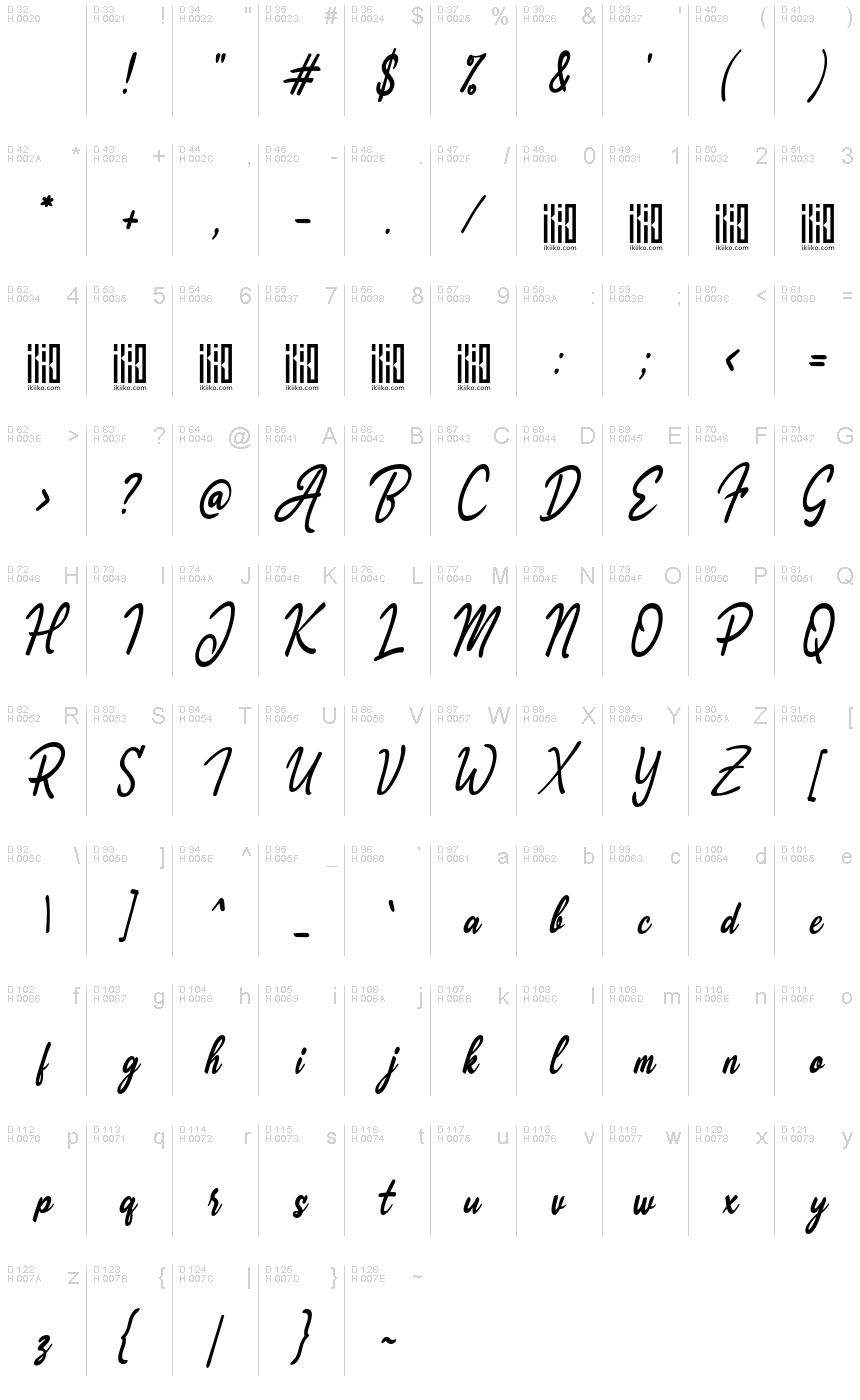
Athens, designed by Ikiiko Type, embodies the charm of handwritten artistry with a modern twist. Its condensed form exudes elegance and personality, making each glyph appear as though penned with care and intention. The flowing strokes suggest a casual yet sophisticated vibe, perfect for designs that require a touch of personal flair.
This font's aesthetic is versatile enough to enhance branding projects, invitations, and editorial designs where a sense of intimacy and bespoke craftsmanship is desired. Athens brings an organic warmth to digital spaces that yearn for the human touch.